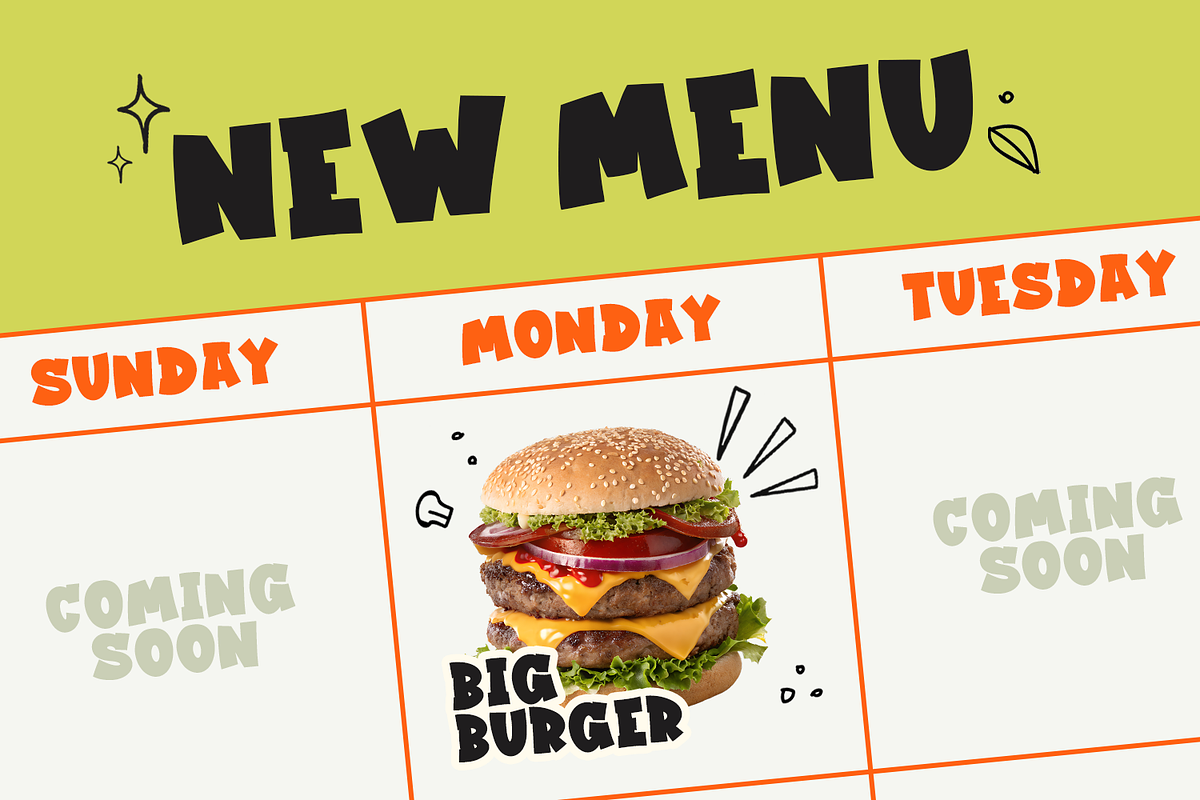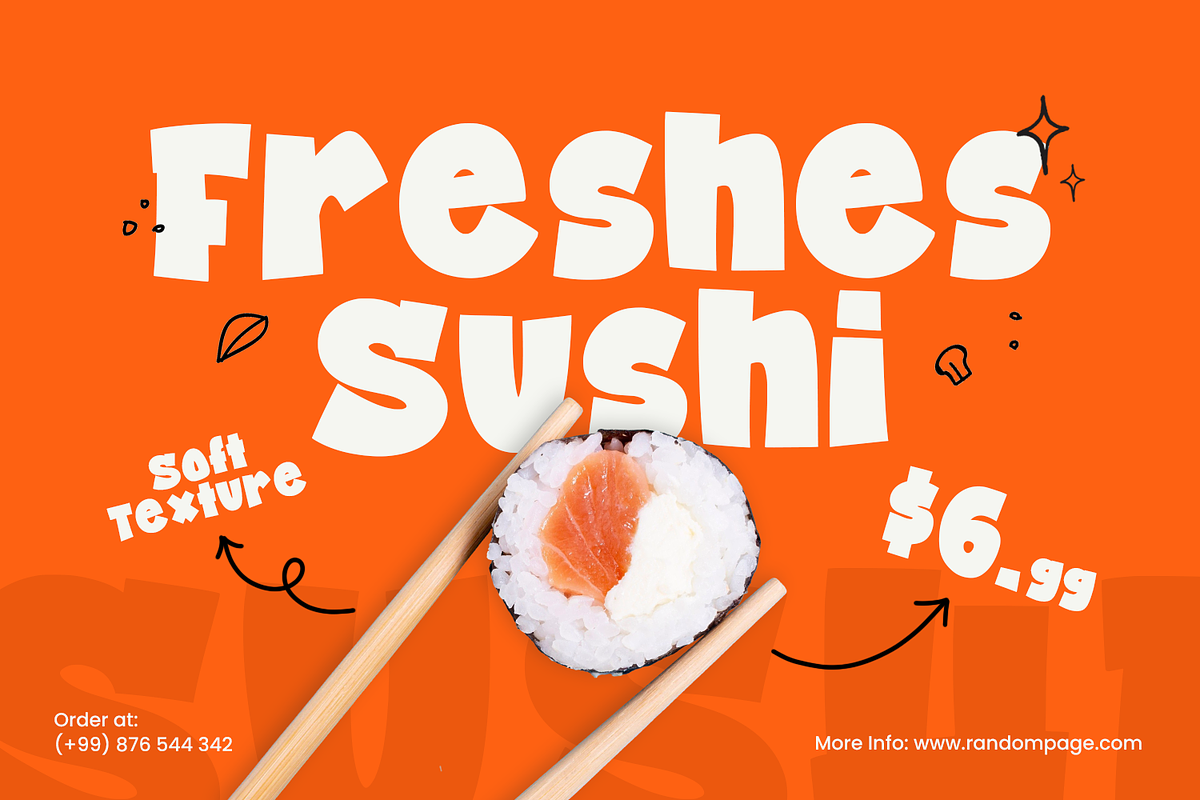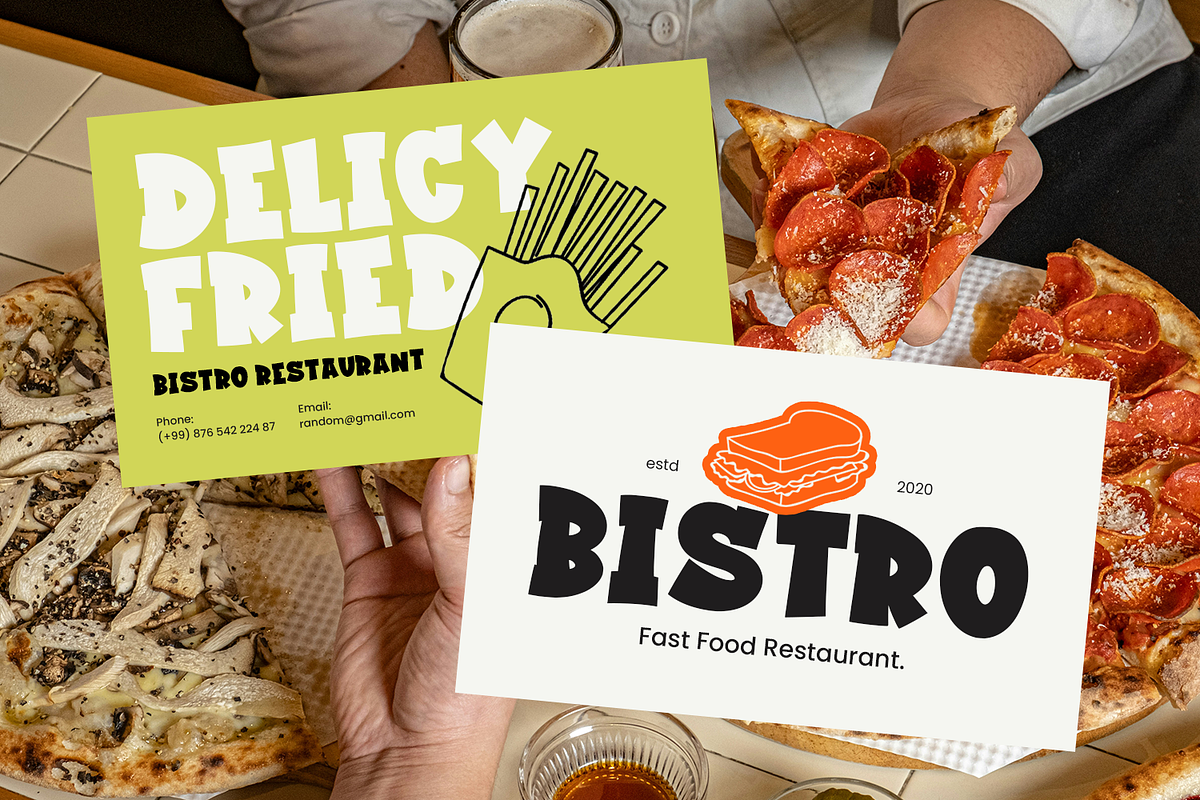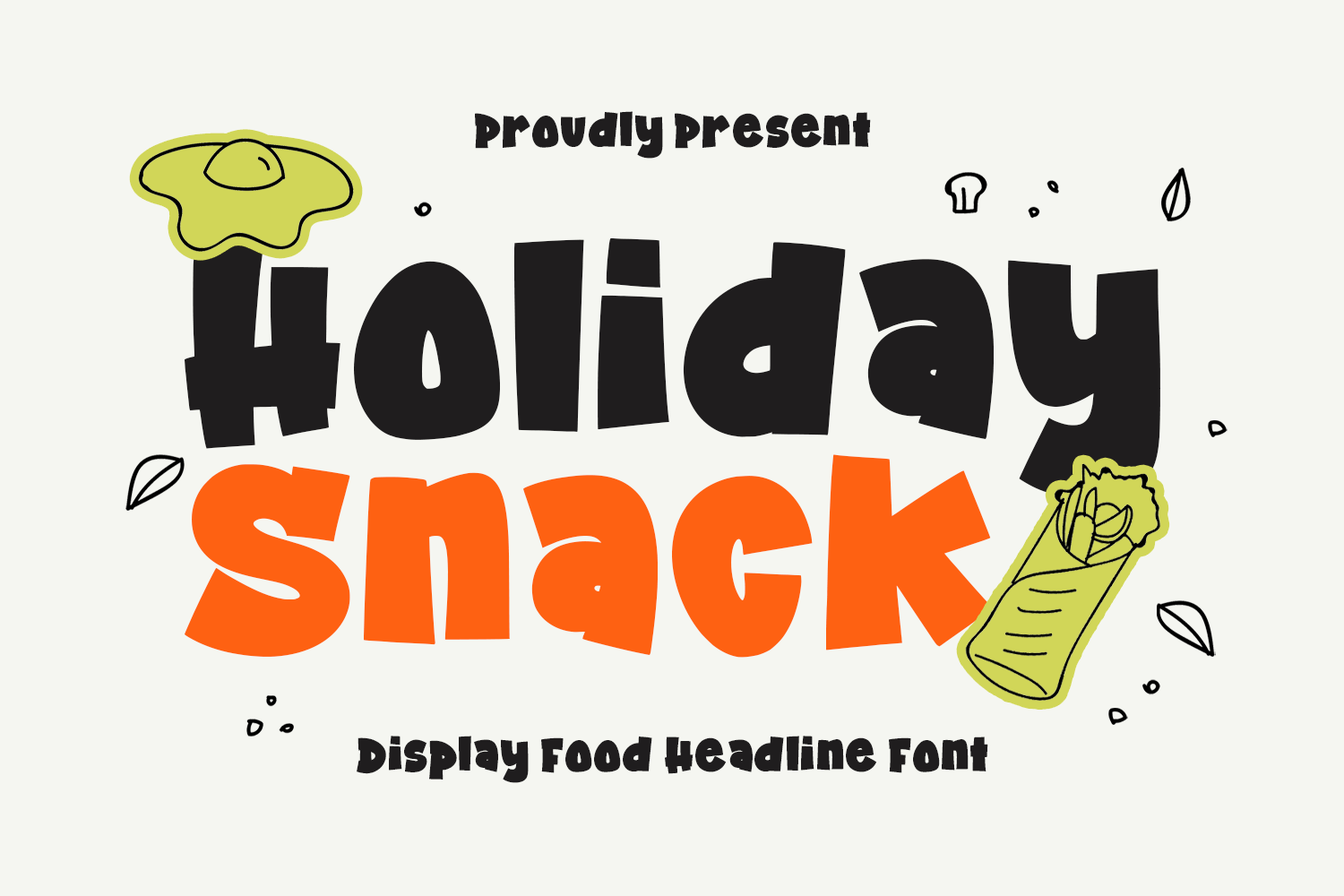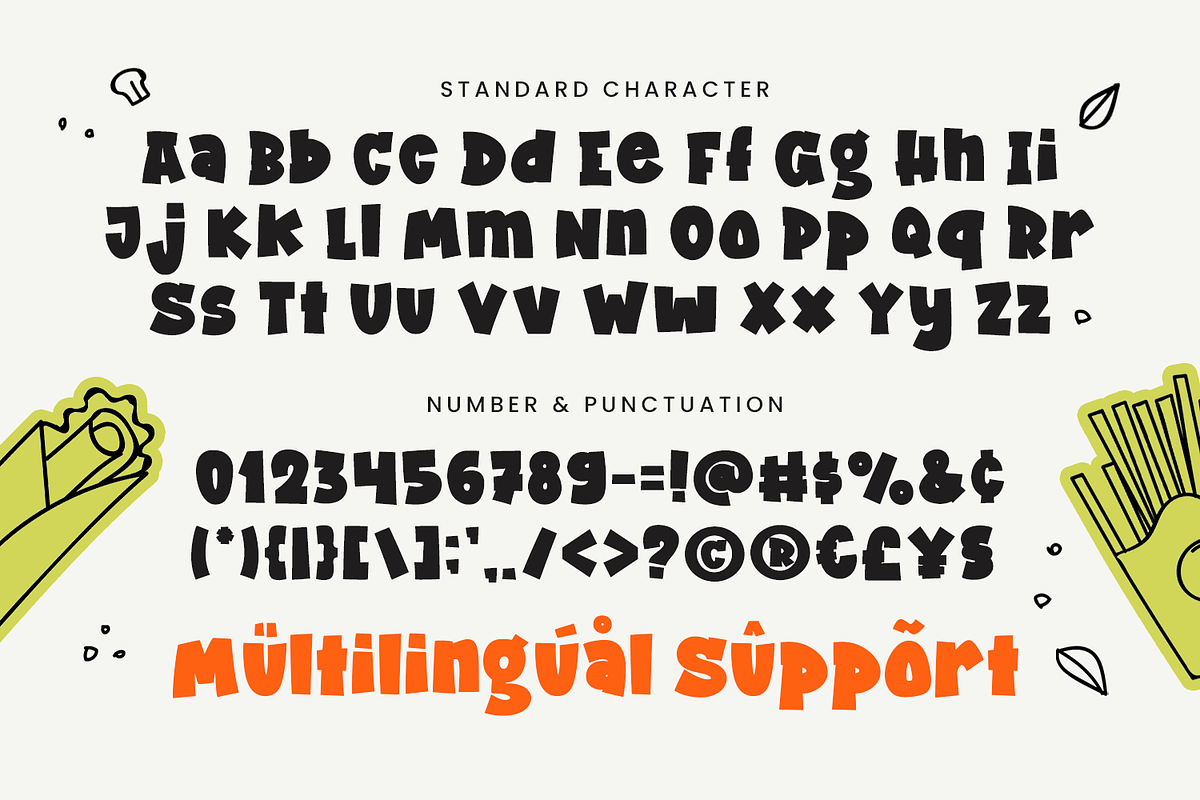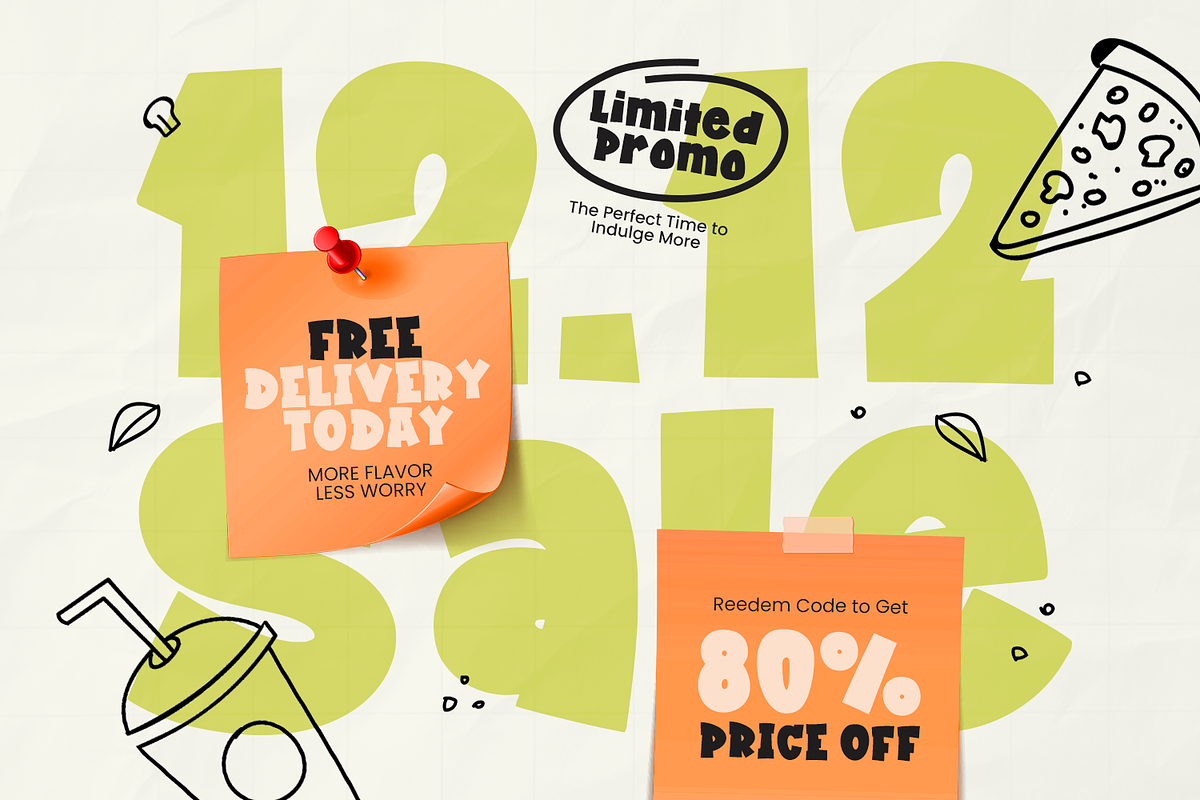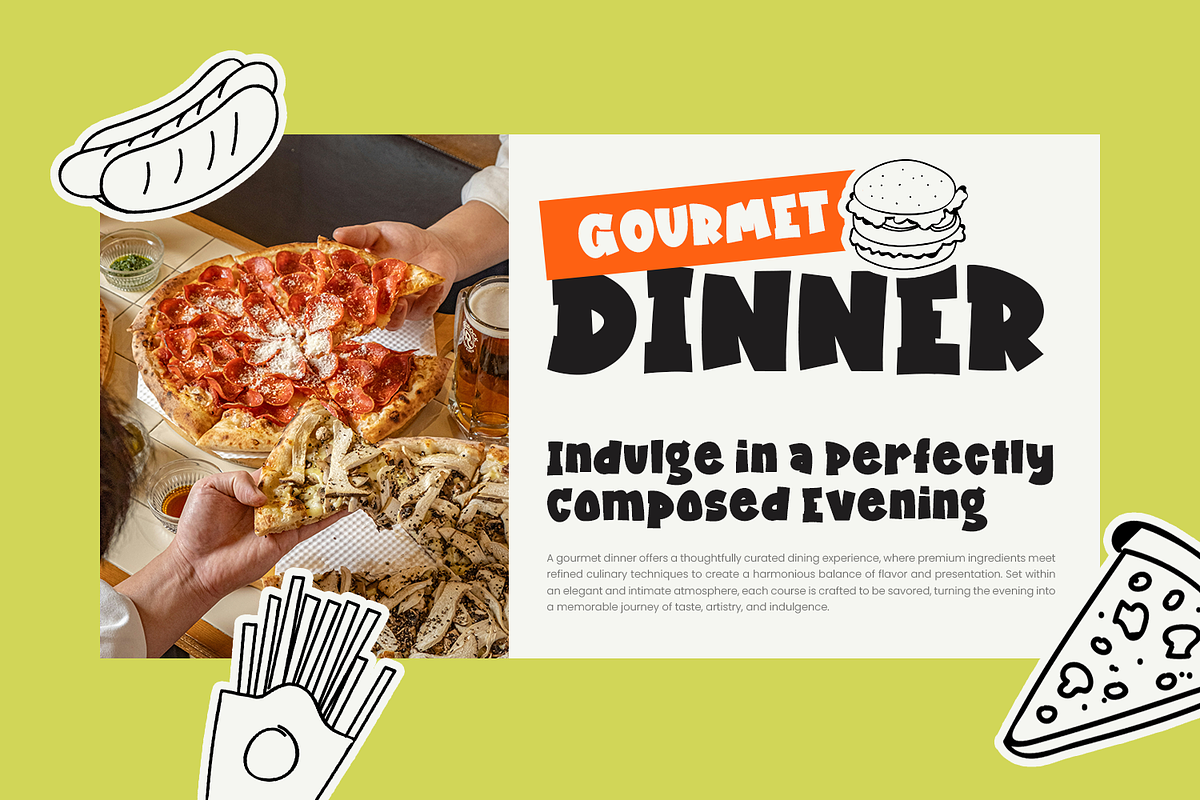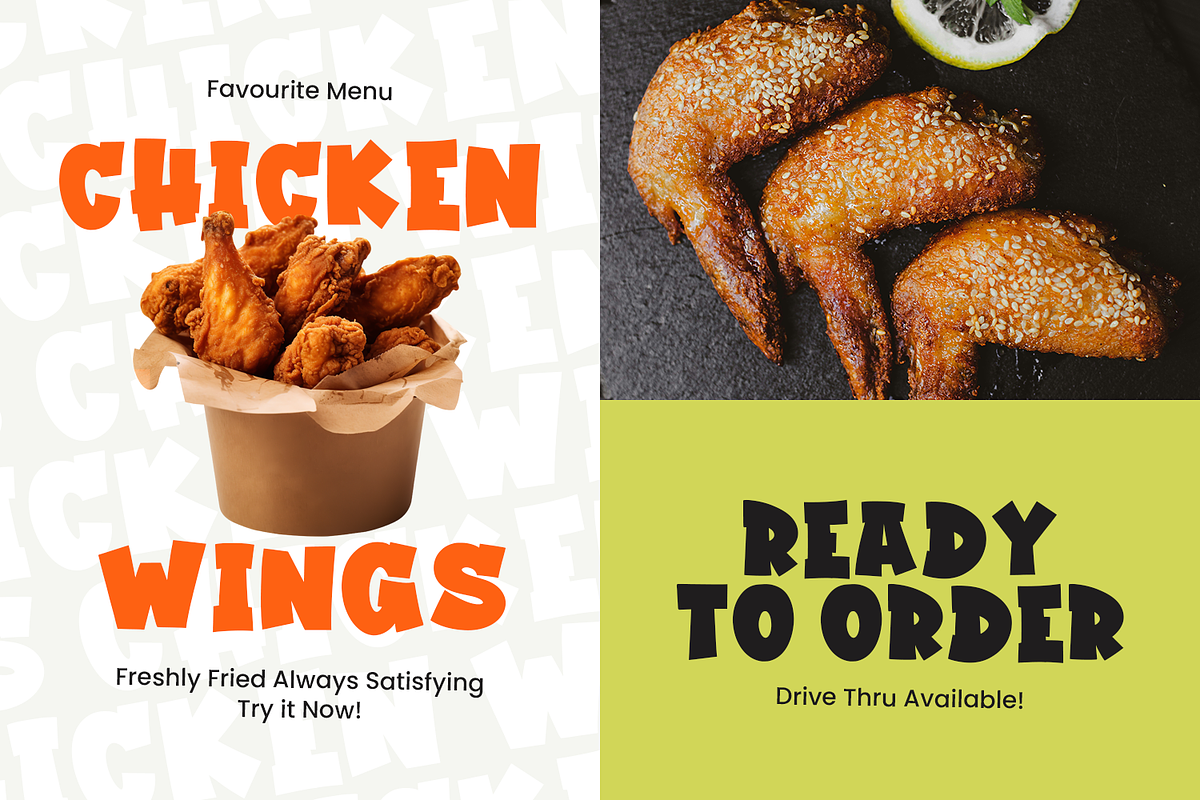
Holiday Snack - Food Font
Holiday Snack is a fun and appetizing food font designed to bring a playful, tasty vibe to your creative projects. Inspired by festive treats and joyful holiday moments, this font features bold, friendly letterforms that instantly catch the eye and create a cheerful atmosphere.
Perfect for food-themed designs, Holiday Snack works beautifully for Christmas, holidays, baking projects, menus, packaging, labels, promotions, and kids-friendly designs. Its lively style adds a sense of fun and warmth, making it ideal for seasonal events and culinary branding.
Holiday Snack shines in applications such as menu boards, snack packaging, posters, stickers, social media content, and promotional materials. The playful typography helps convey flavor, joy, and celebration, making every design feel more inviting and delicious.
This font is also well-suited for Cricut projects, crafts, DIY decorations, lettering, and SVG designs. Whether used for digital artwork or handmade products, Holiday Snack delivers a bold and cheerful look that stands out.
- Standard & Multilingual glyphs.
Fonts include multilingual support for; Afrikans, Danish, Dutch, English, Estonian, Filipino, Finnish, French, Friulian, Galician, German, Gusii, Indonesian, Irish, Italian, Luxembourgish, Norwegian Bokmål, Norwegian Nynorsk, Nyankole, Oromo, Portuguese, Romansh, Rombo, Spanish, Swedish, Swiss-German, Uzbek (Latin) Scottish, Swiss, etc.